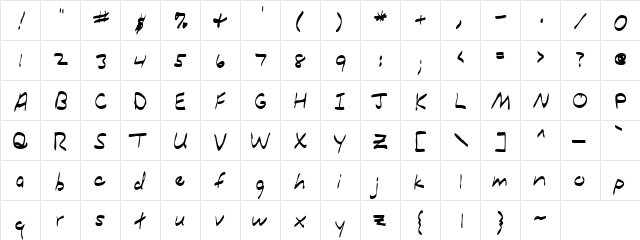
Shopping Everyday Regular
| Foundry | Munika Font |
| Designer | Munika Font |
Design Context for Shopping Everyday Typeface
Shopping Everyday is a composed and adaptable typeface that performs quietly and consistently across a wide range of design contexts.